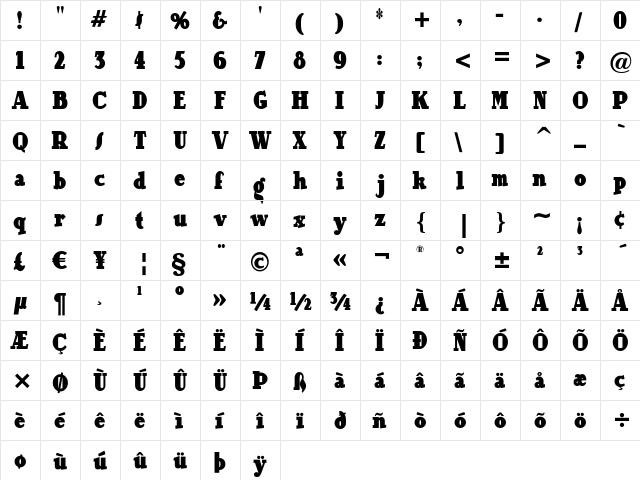
OurGang Regular
Design Context for OurGang Typeface
OurGang takes a measured approach to typography — its balanced proportions and neutral character make it a reliable workhorse for both digital and print work.